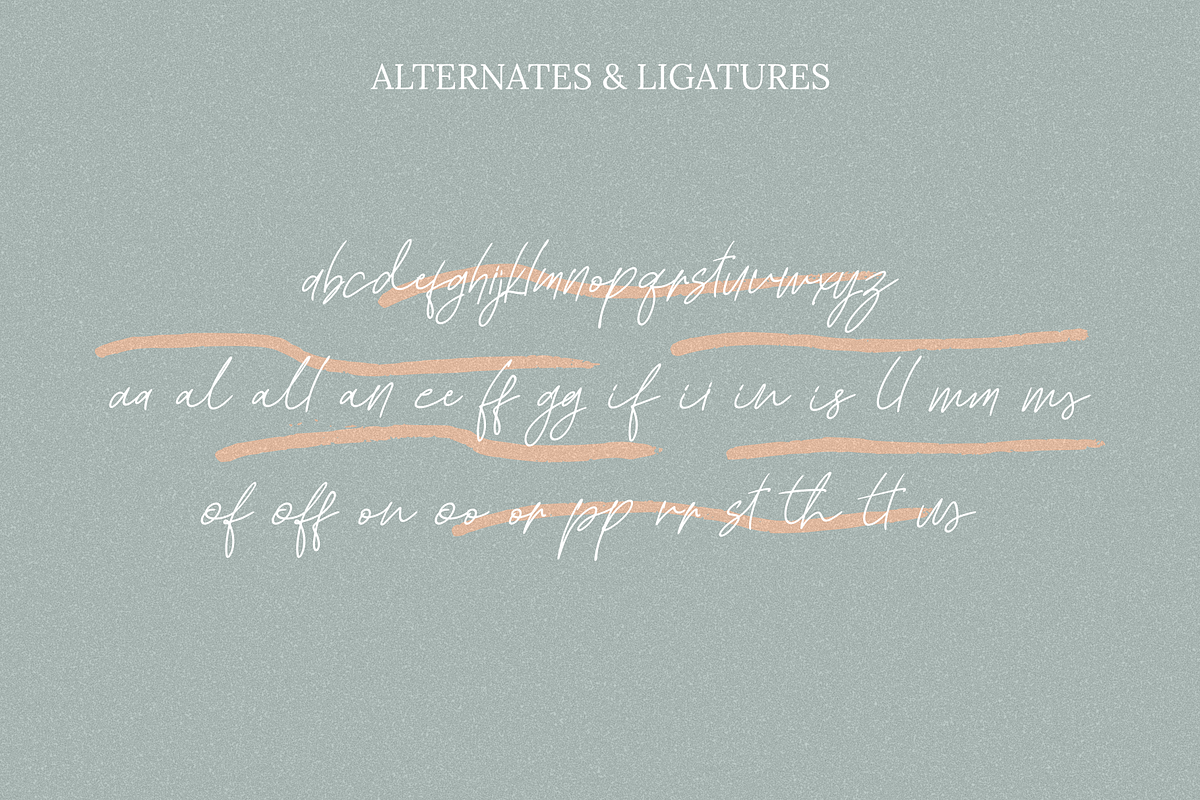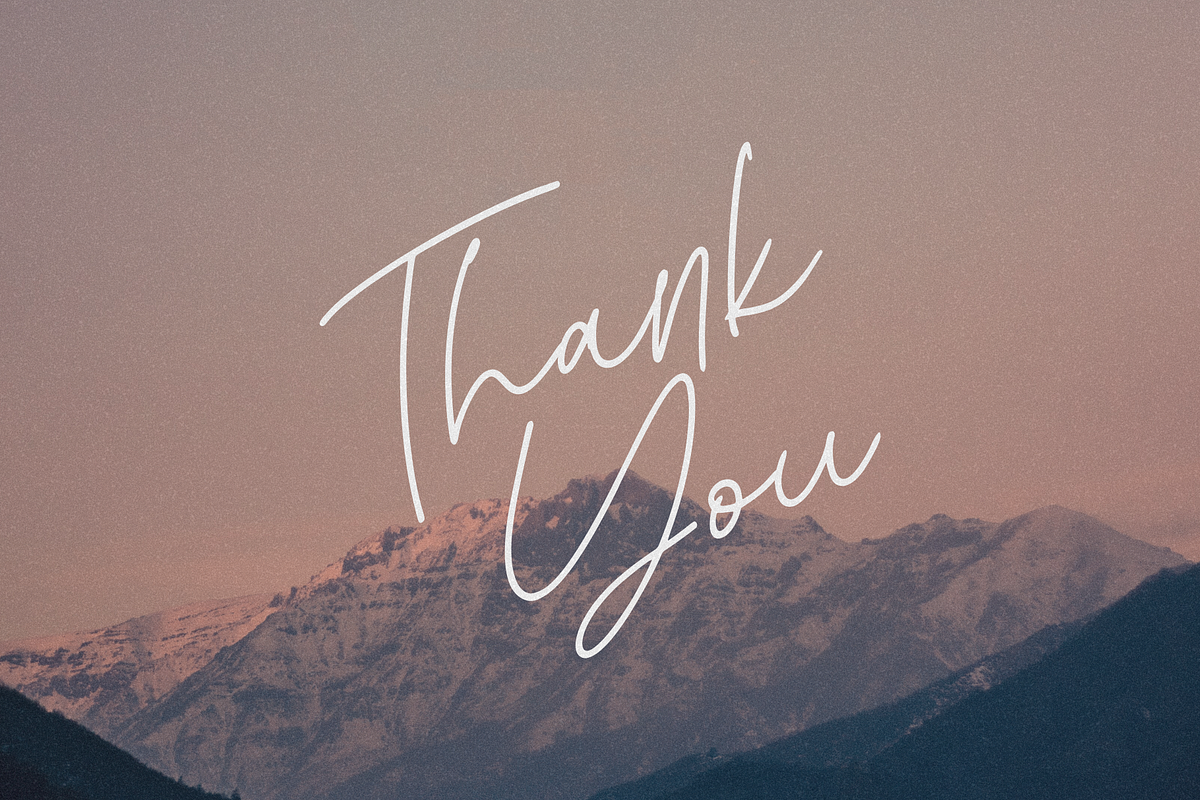
Kadung Tresno
Kadung Tresno is a fresh and modern signature font, handmade for an authentic and stunning look. Use this for logotype and headlines for a cool and hip feel.